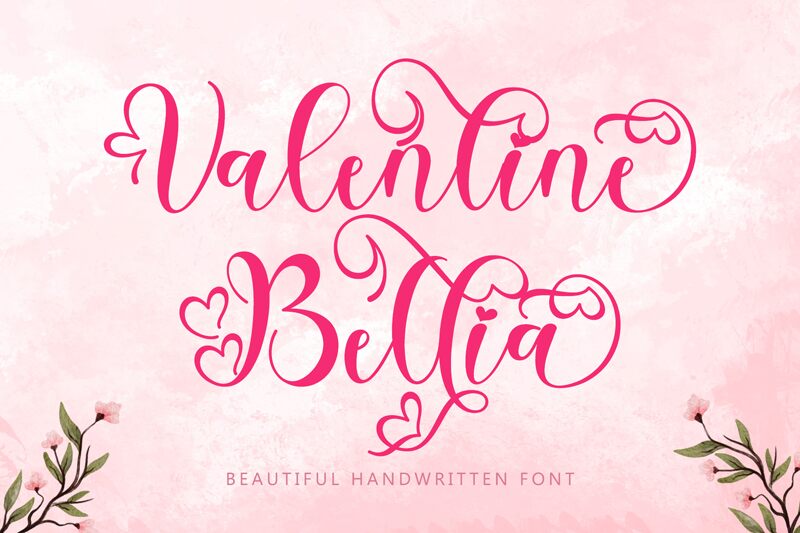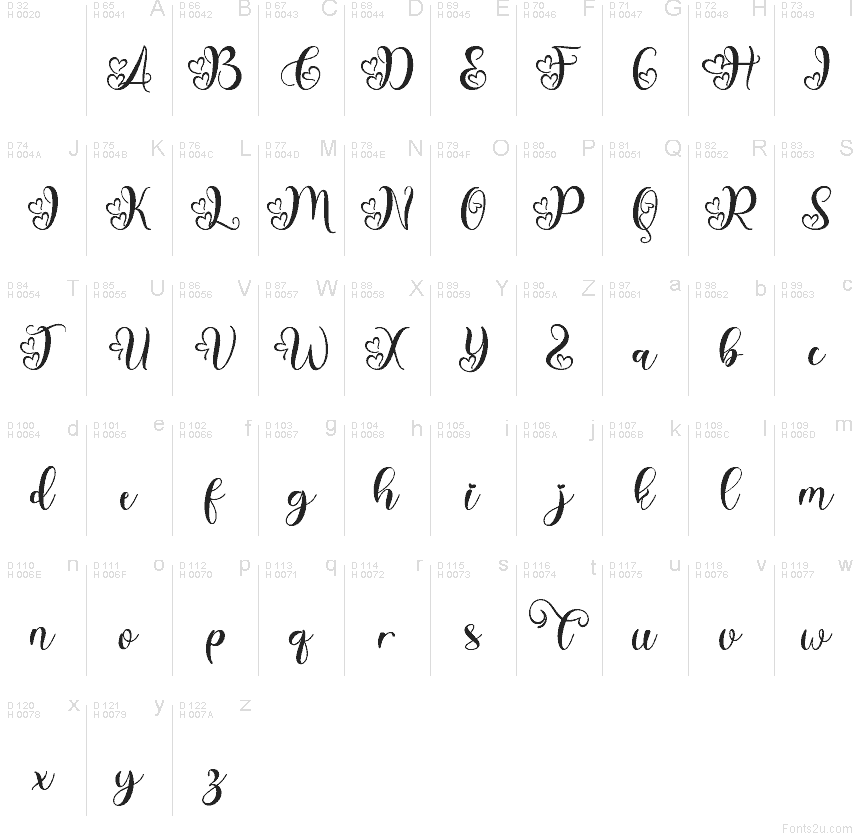
Valentine Bellia
Valentine Bellia font by Yoga Letter is a free romantic calligraphy typeface that twirls across the page like fresh ink from a love note. Flowing strokes, looping swashes, and playful heart-shaped touches give it a soft, hand-lettered charm that feels personal and warm rather than stiff or formal. The letters connect smoothly, creating a graceful rhythm that instantly reads as tender, celebratory, and full of affection.
Using Valentine Bellia, you can bring a heartfelt mood to wedding invitations, Valentine’s cards, love quotes for social media, gift tags, boutique branding, and sweet product packaging. This free font shines when set large so the curls and flourishes can breathe; pair it with a clean sans serif for small details and dates to keep your layouts romantic but still easy to read.